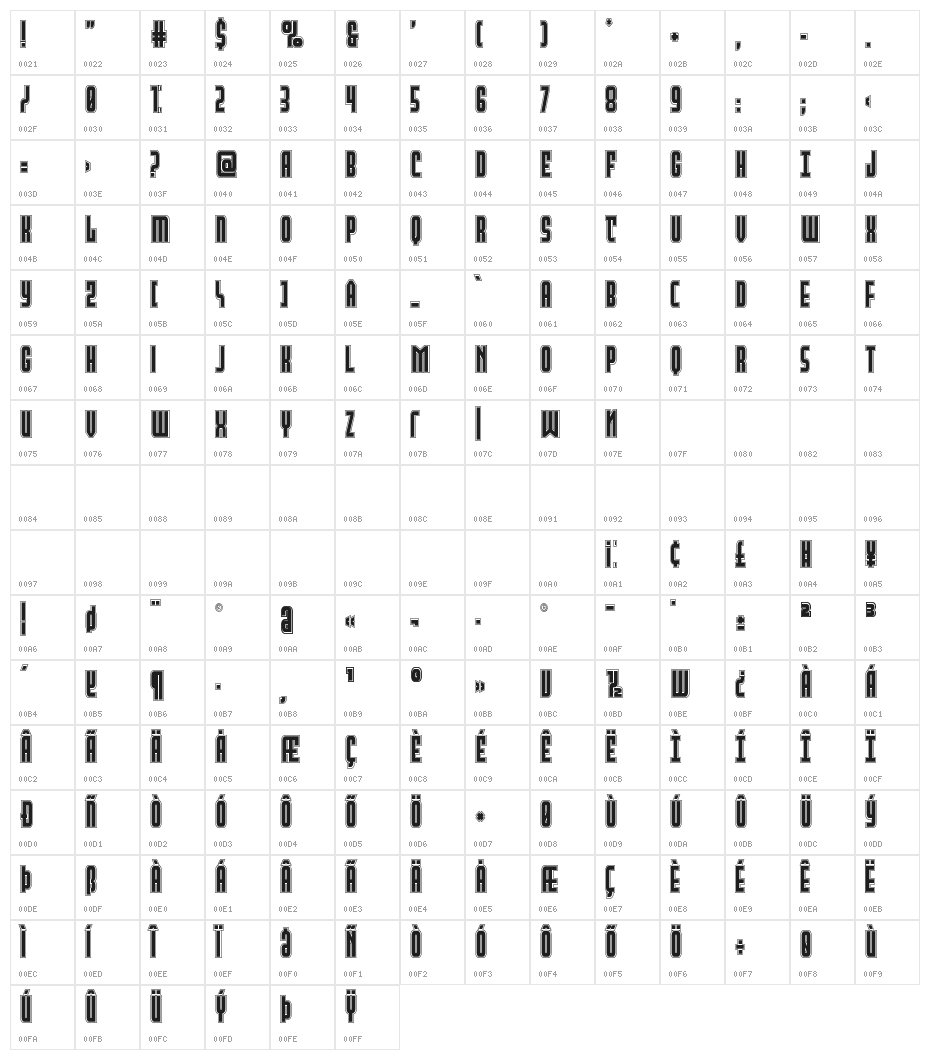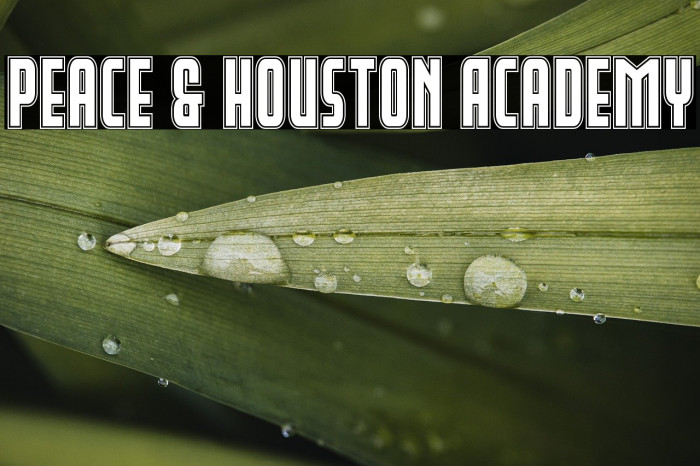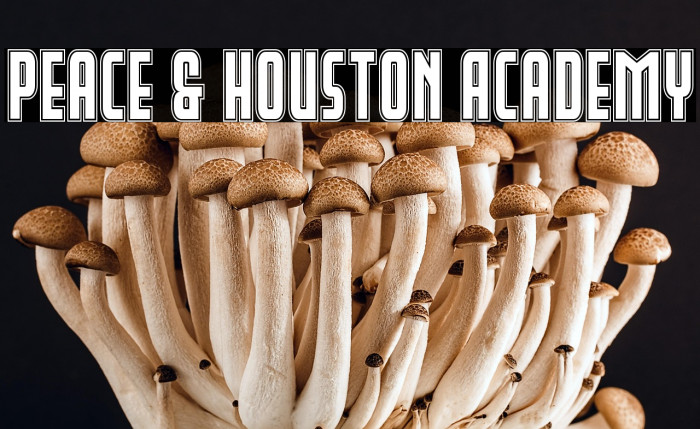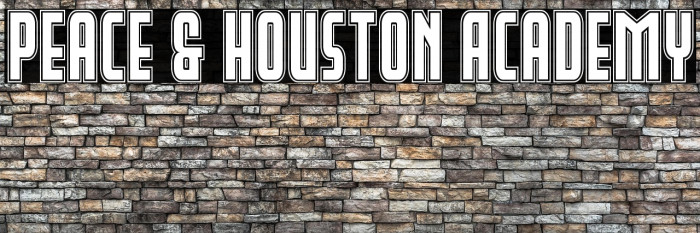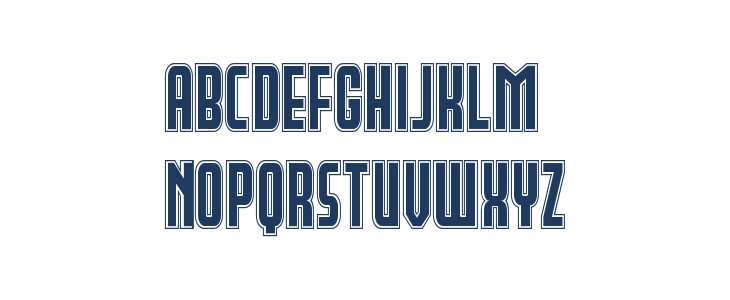
Peace & Houston Academy Font
Peace & Houston Academy Description
This font features a bold, geometric design with a strong presence. The characters are outlined, creating a striking visual effect that emphasizes each letter's form. The uppercase and lowercase letters maintain a consistent style, with sharp angles and clean lines. The numbers and special characters follow the same design principles, ensuring uniformity across all glyphs. This font's boldness and distinct outline make it ideal for attention-grabbing designs.
| Proposed Projects | Ideal for sports branding, posters, headlines, and any design requiring a strong, impactful typeface. |